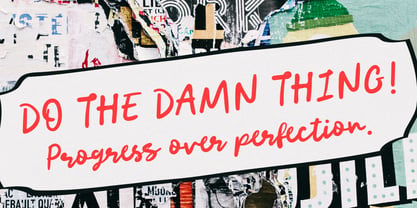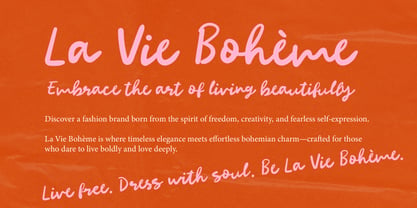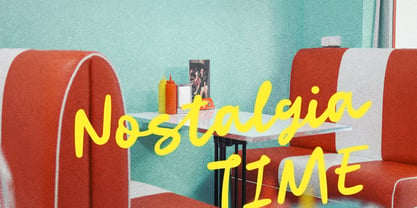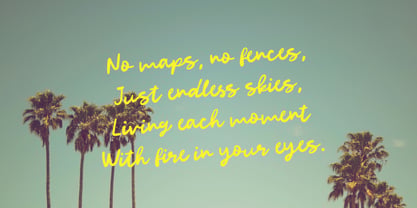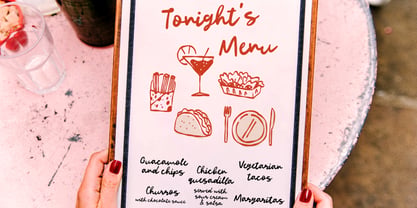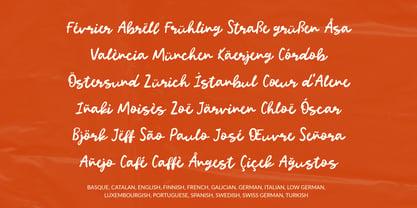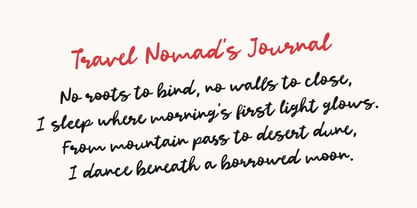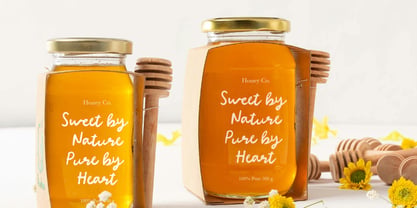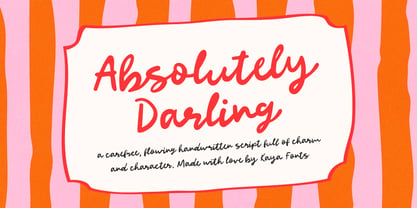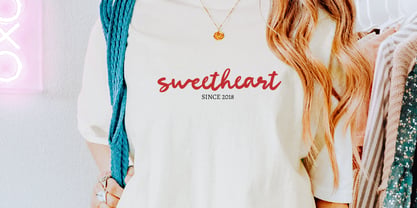
Absolutely Darling
von Kaya Fonts
Die Schriftfamilie Absolutely Darling wurde von Fatih Kaya entworfen und von Kaya Fonts veröffentlicht. Absolutely Darling enthält 1 Stile. Mehr über diese Familie
Absolutely Darling is a bold, carefree handwritten script with imperfect strokes and a playful flow. It brings a relaxed, playful vibe to any project that needs a touch of personality and charm. Every letter feels spontaneous, stylish, and full of creative energy.
Designer: Fatih Kaya
Foundry: Kaya Fonts